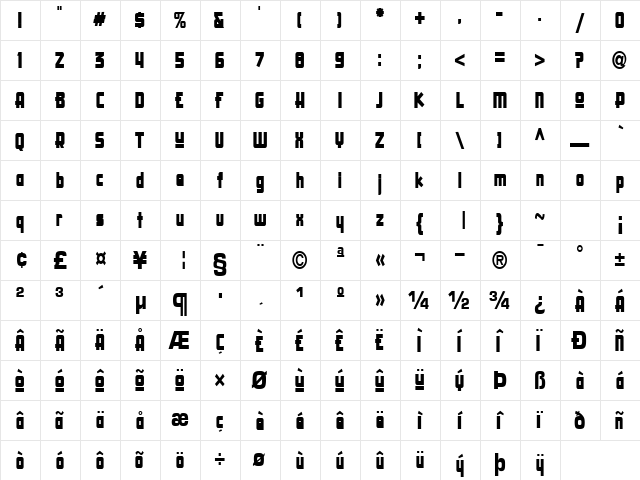
CreativeThoughtText124 Regular Font Preview
CreativeThoughtText124 Regular
CreativeThoughtText124 Regular Font Details
Design Context for CreativeThoughtText124 Typeface
CreativeThoughtText124 takes a measured approach to typography — its balanced proportions and neutral character make it a reliable workhorse for both digital and print work.